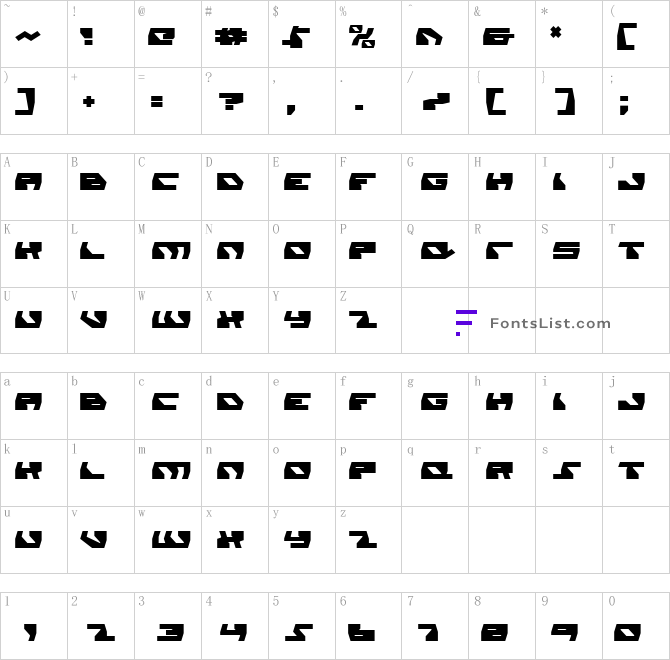
- Font Name:Daedalus
Daedalus.ttf is a very beautiful artistic font, Daedalus.ttf is widely used in the design and printing of various books and pictures,Daedalus.ttf has a strong visual impact,Daedalus.ttf is a commonly used font in newspapers, magazines and books, and is used in posters, e-commerce Poster design, store design, logo design, font design and other fields.Daedalus.